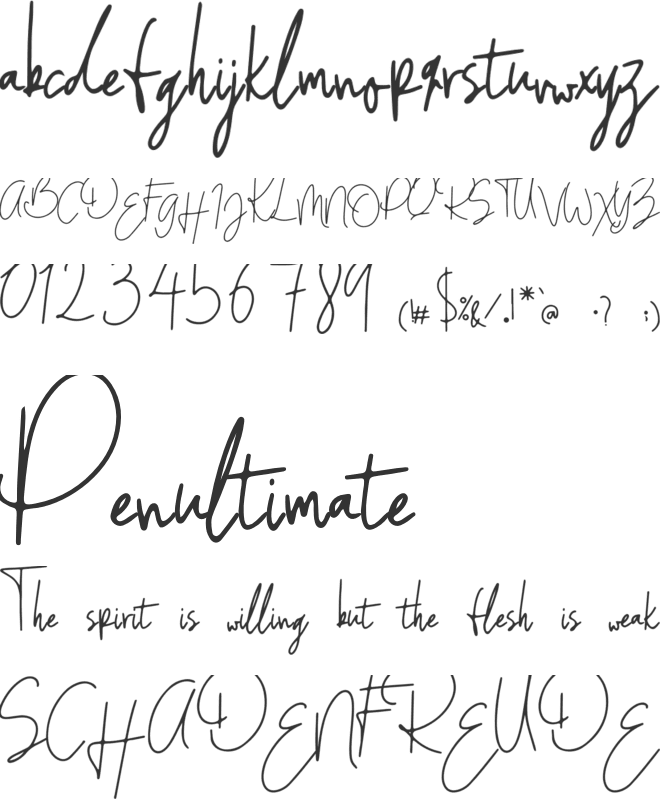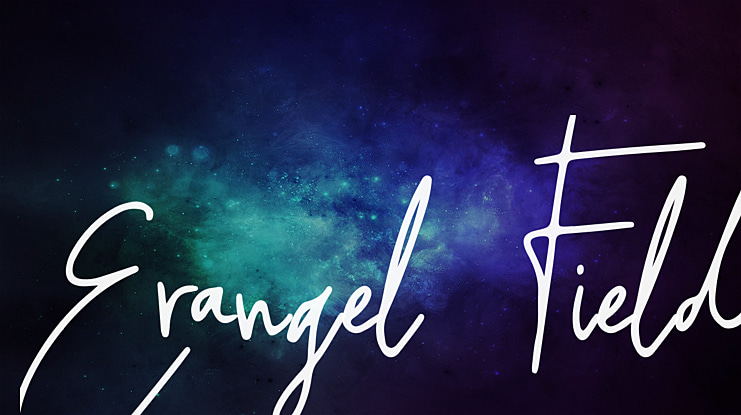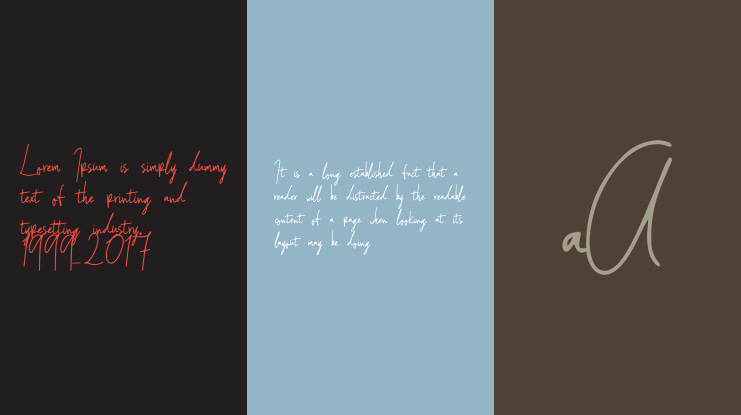
Erangel Field Font
Erangel Field a realistic handwritten font that will give your design projects the natural handwritten style and hand-crafted aesthetic touch.
Erangel Field Font best uses for signature logos and branding, poster, invitations, and many more. Make your projects stand out even more with Erangel Field!